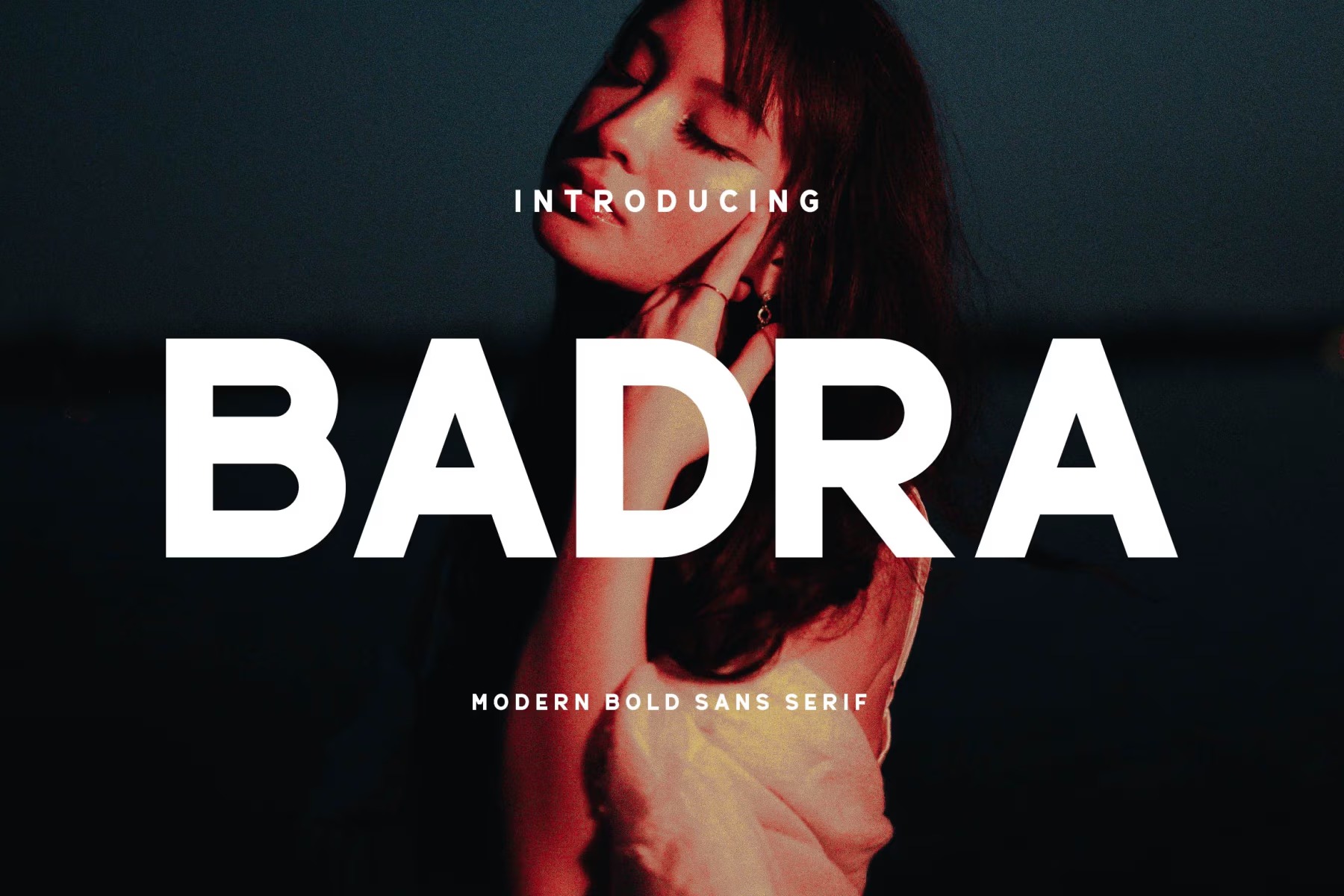
Badra Font
Badra Font is a professionally designed typeface that delivers clarity, structure, and consistent performance across various design applications. Badra Sans Font Typeface inspired by the famous minimalist logo perfect for the purposes of designing templates, brochures, videos, advertising branding, logos, invitation, layout design, elegant crafting, beauty design and other.